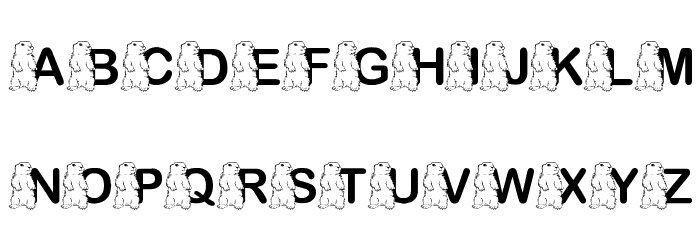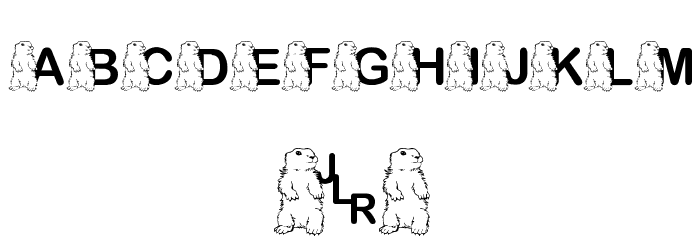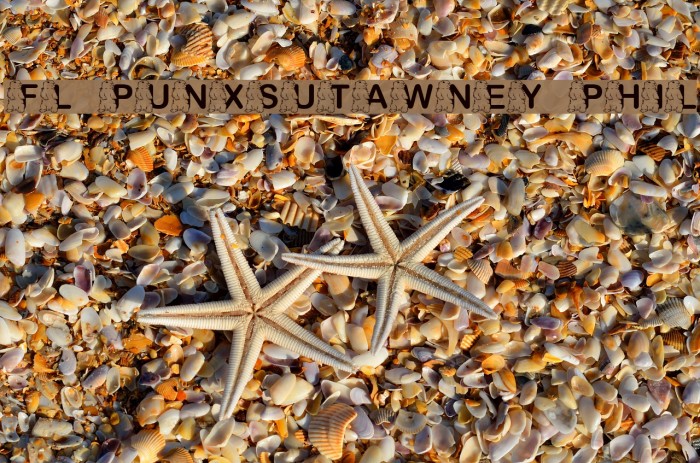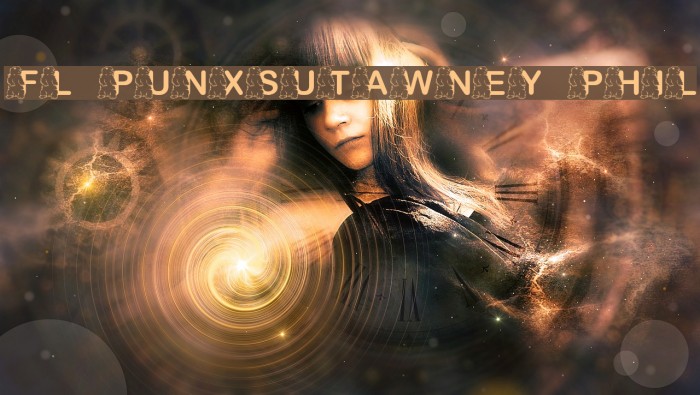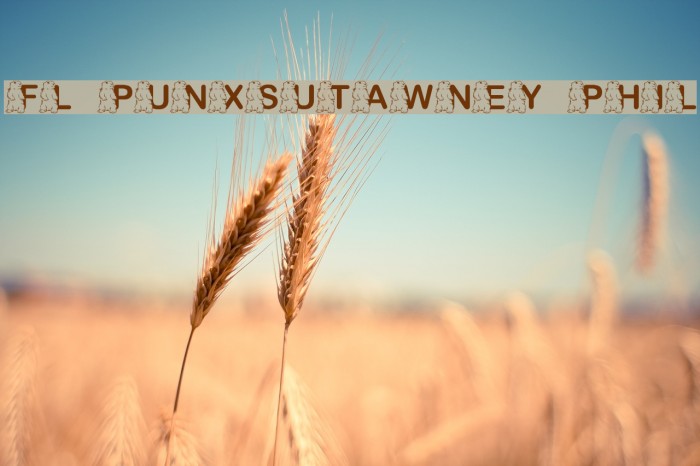
FL Punxsutawney Phil Font
This playful and whimsical font features bold, uppercase letters interspersed with charming groundhog illustrations. Each letter is crafted with a solid, black stroke that contrasts sharply with the white space around it, enhancing readability while maintaining a fun and engaging aesthetic. The groundhog characters add a unique, thematic element, making the font particularly suitable for projects that require a touch of humor or a nature-related theme. The font's design is consistent across all letters, ensuring a cohesive look that is both eye-catching and memorable.
A whimsical font with bold letters and groundhog illustrations.
- Proposed Projects: Ideal for children's books, nature-themed events, playful branding, and educational materials.
- Overall Style: Playful